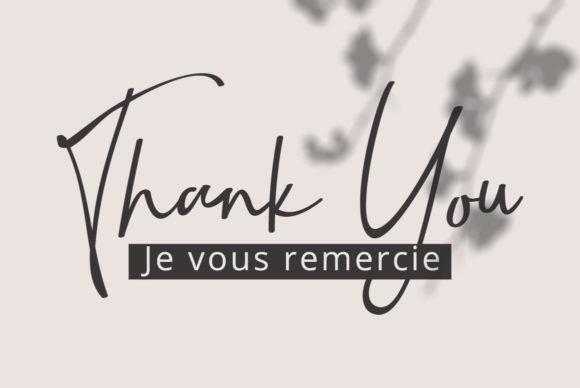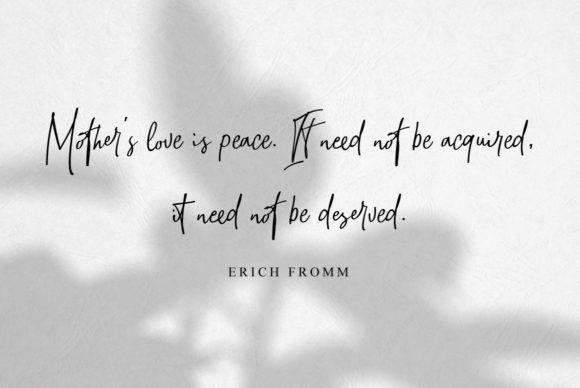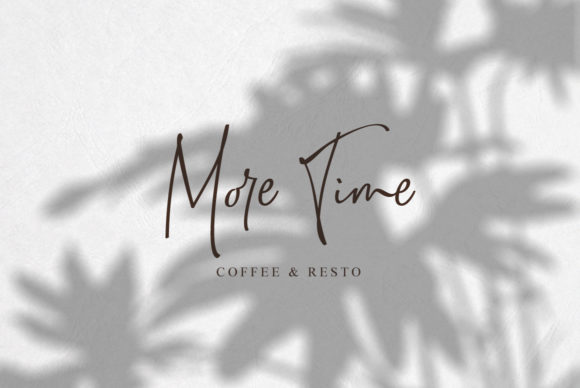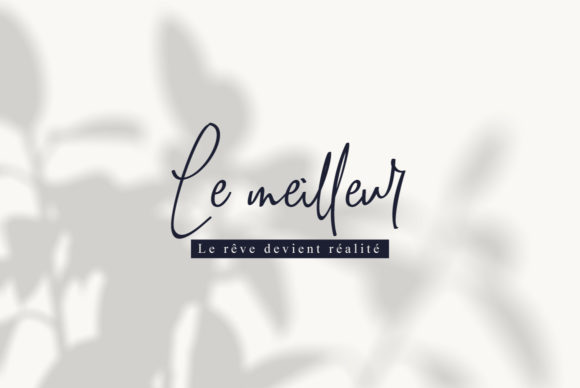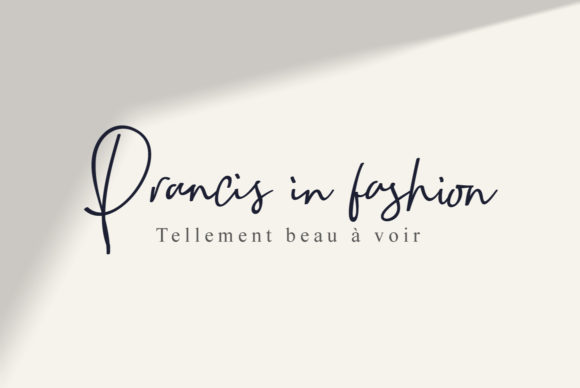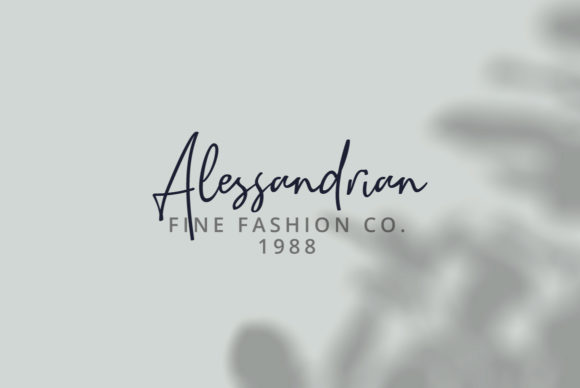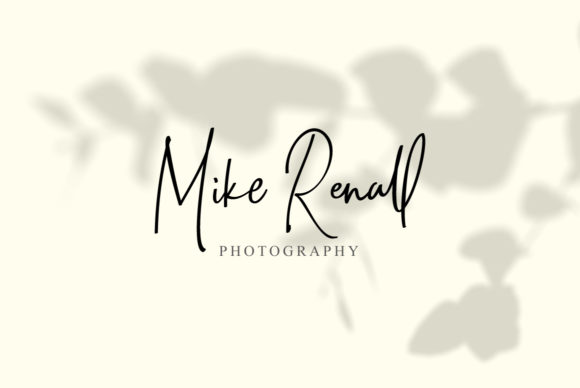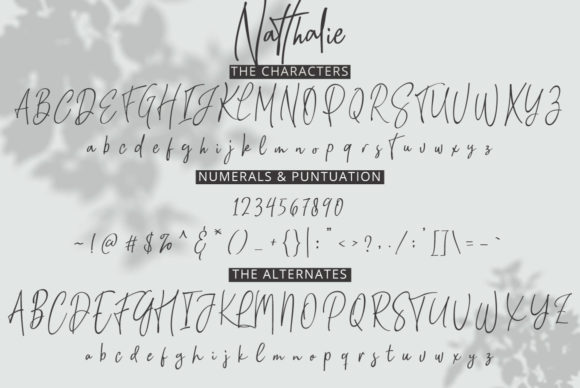
Natthalie Font
About Natthalie Font
Natthalie is a stunningly light and casual handwritten font with cool feel. Use it to add a level of sophistication to any design project!